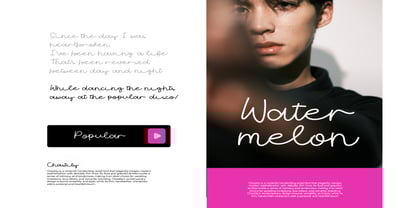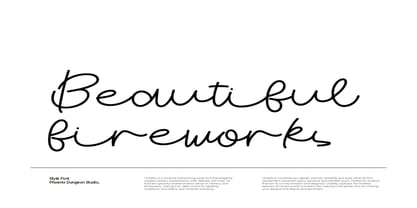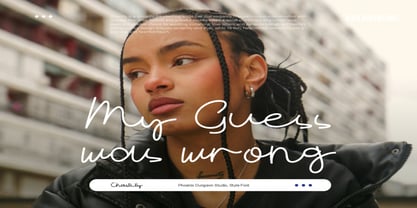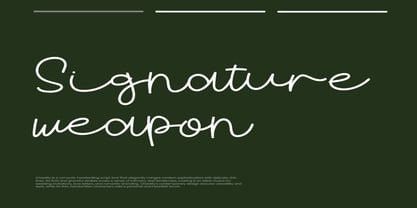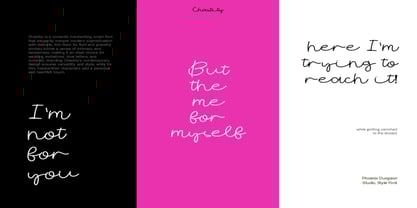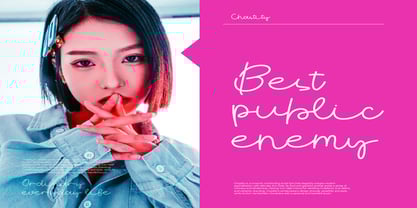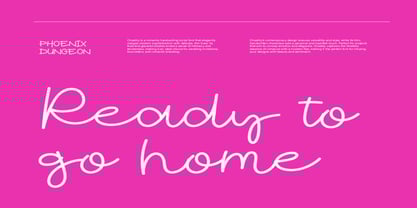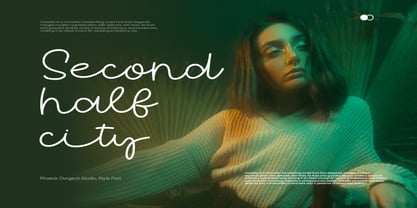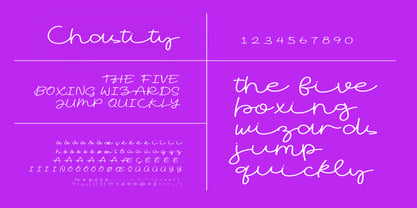
Chastity
by Phoenix Group
The Chastity Font Family was designed by Alif Naufal Muzakki and published by Phoenix Group. Chastity contains 1 styles. More about this family
Chastity is a romantic handwriting script font that elegantly merges modern sophistication with delicate, thin lines. Its fluid and graceful strokes evoke a sense of intimacy and tenderness, making it an ideal choice for wedding invitations, love letters, and romantic branding. Chastity's contemporary design ensures versatility and style, while its thin, handwritten characters add a personal and heartfelt touch. Perfect for projects that aim to convey emotion and elegance, Chastity captures the timeless essence of romance with a modern flair, making it the perfect font for infusing your designs with beauty and sentiment.
Designers: Alif Naufal Muzakki
Foundry: Phoenix Group